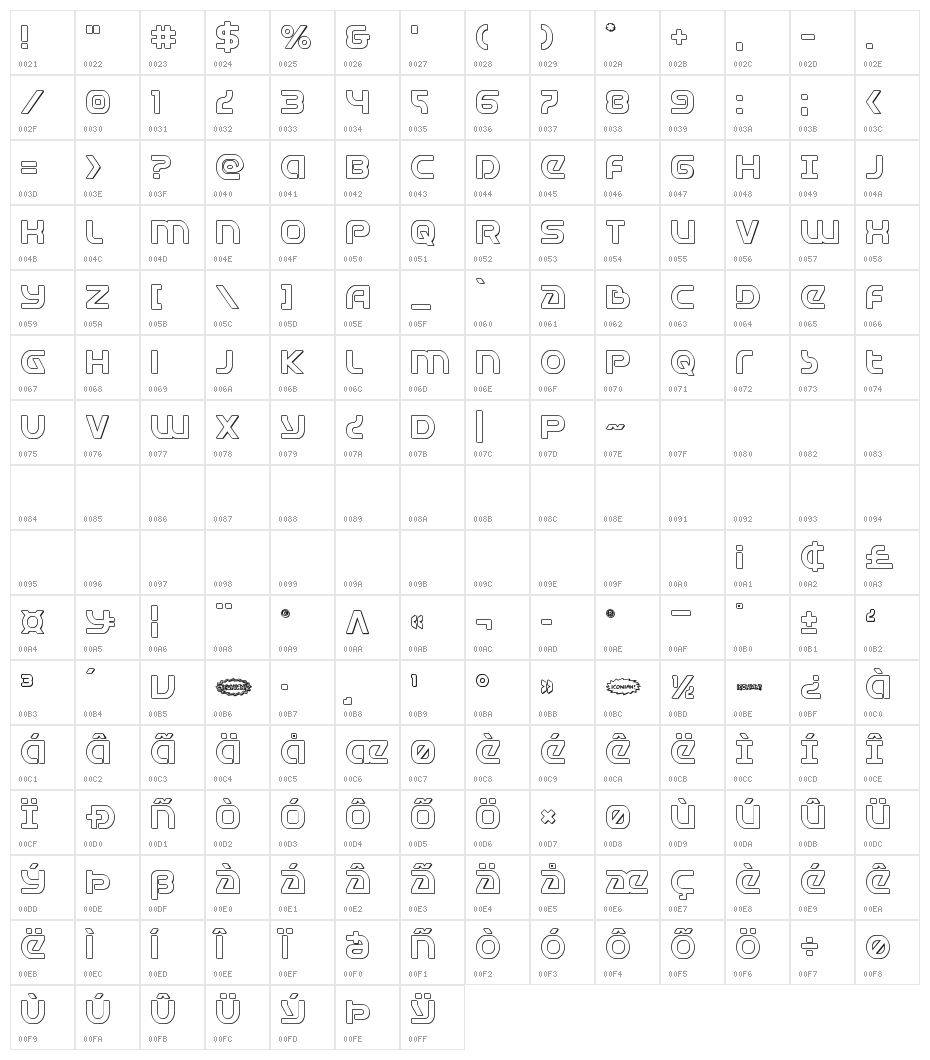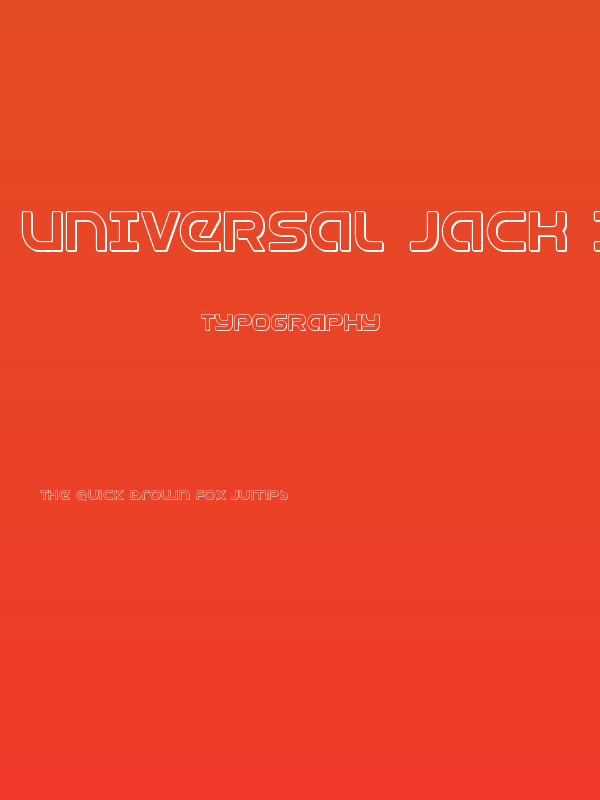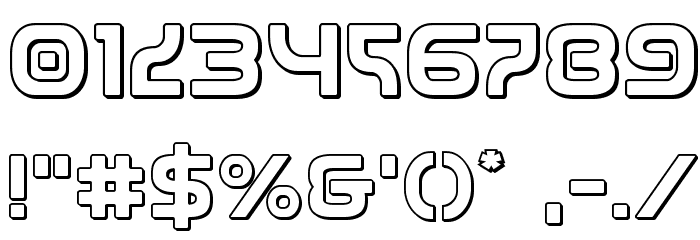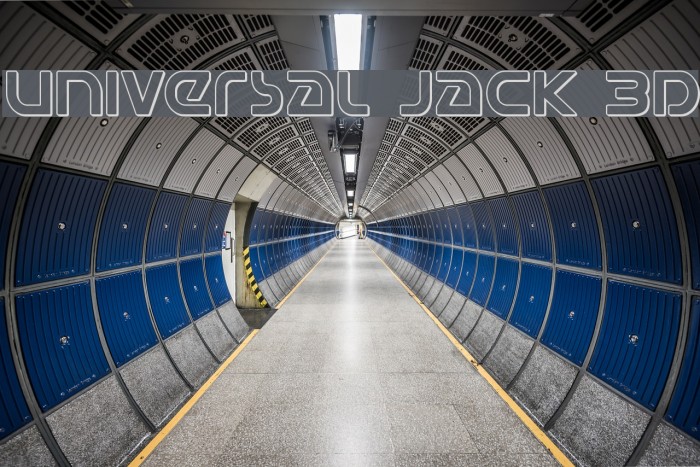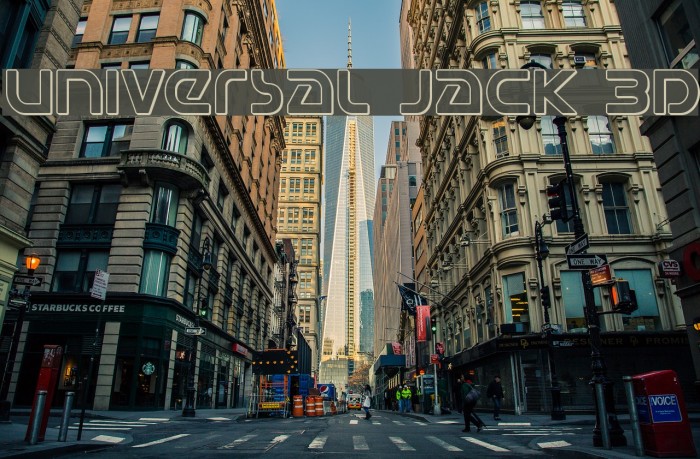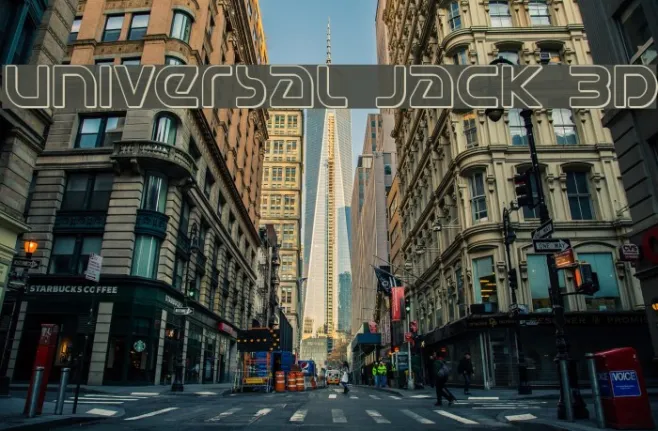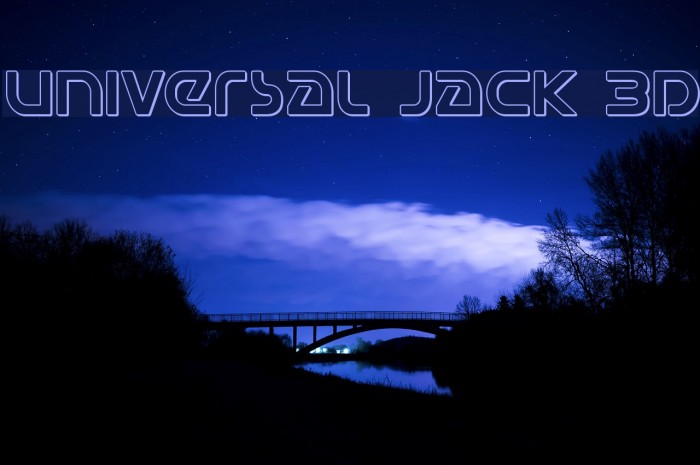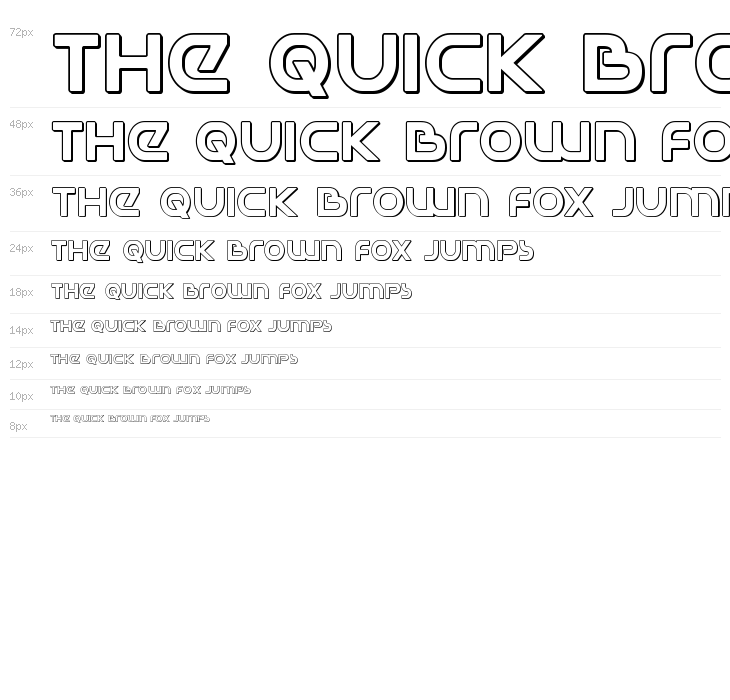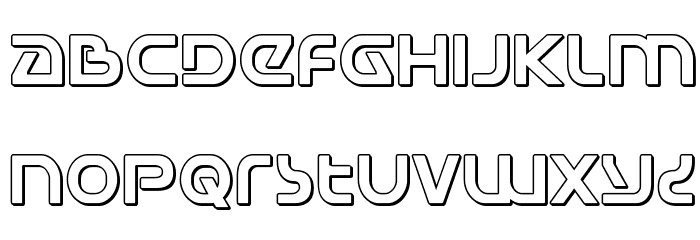
Universal Jack 3D Font
Universal Jack 3D Description
This font features a bold, geometric design with a 3D outline effect, giving it a futuristic and dynamic appearance. The characters are constructed with clean, straight lines and rounded corners, creating a sense of modernity and innovation. The uppercase and lowercase letters maintain a consistent style, while the numerals and special characters complement the overall aesthetic. The font's structure is open and spacious, allowing for excellent readability despite its decorative nature.
| Proposed Projects | Ideal for technology branding, sci-fi themed projects, video game titles, and modern advertising campaigns. |